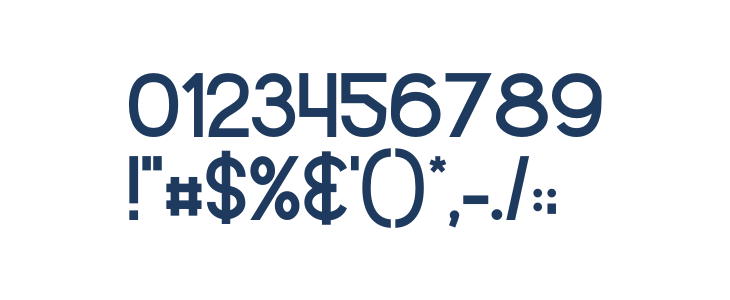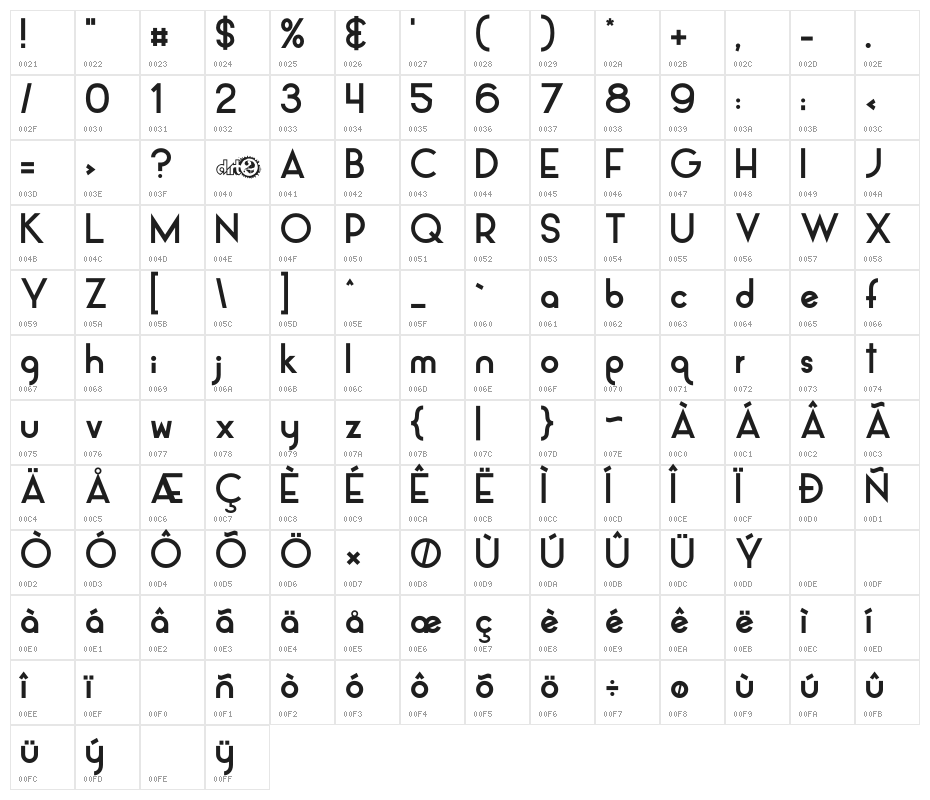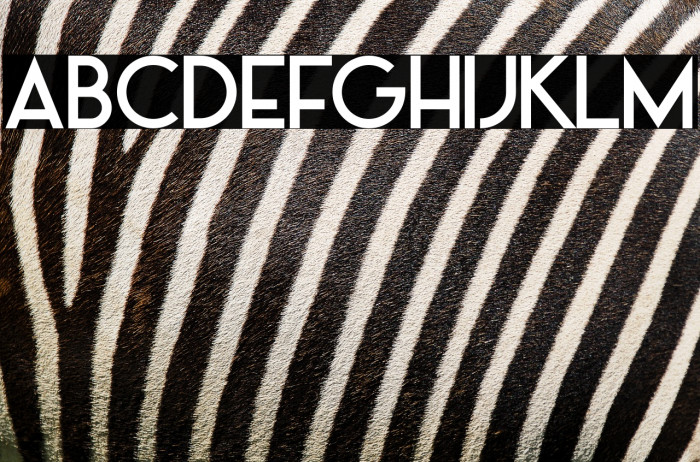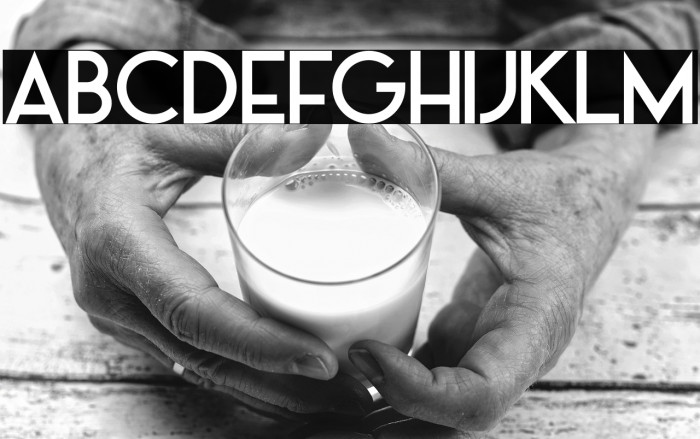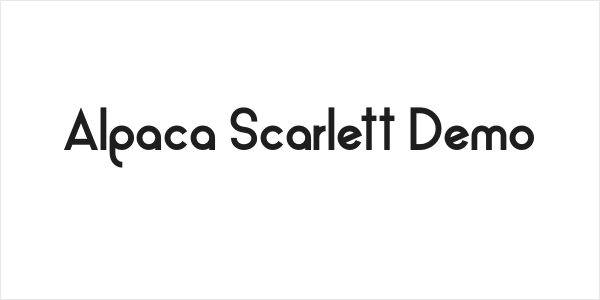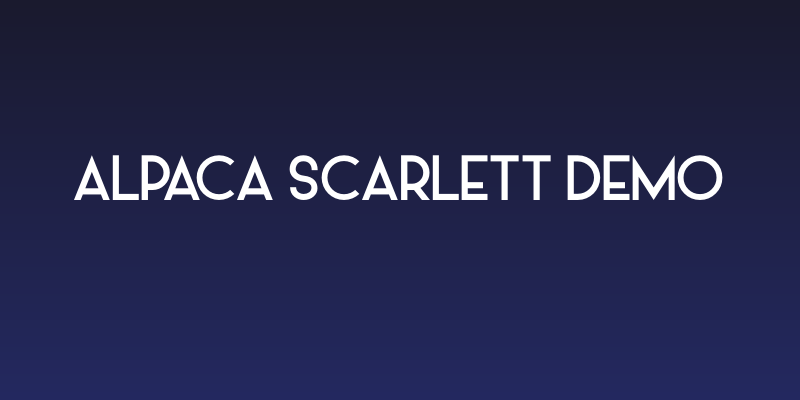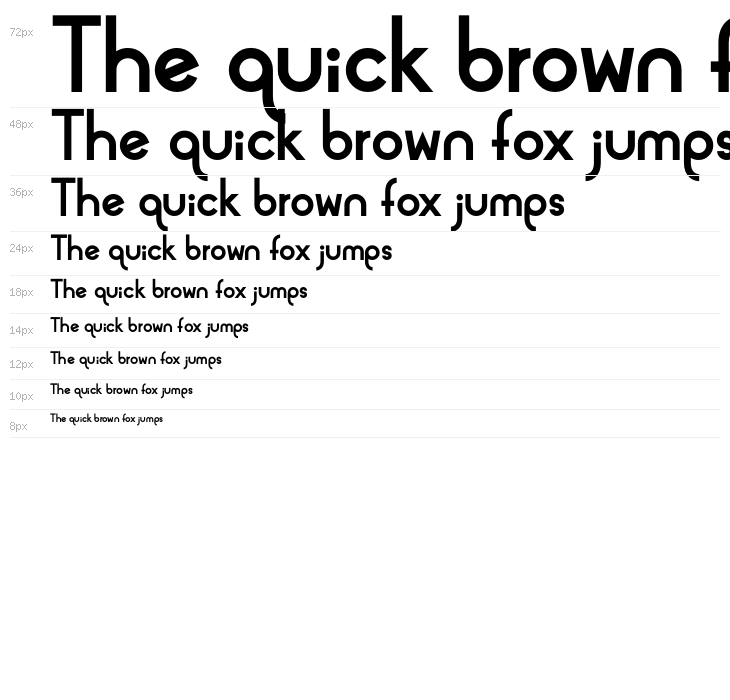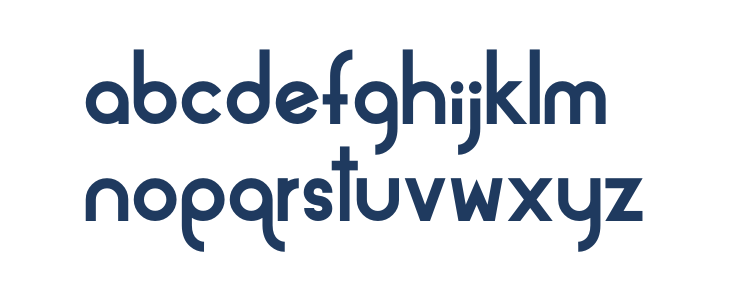
Alpaca Scarlett Demo Font
Alpaca Scarlett Demo Description
This font features a clean, geometric sans-serif style with a modern aesthetic. The uppercase letters are bold and uniform, while the lowercase letters maintain a consistent roundness, offering a friendly yet professional appearance. The numerals are clear and distinct, ensuring readability. Special characters are well-integrated, maintaining the overall geometric theme. The font's simplicity and clarity make it versatile for various design applications.